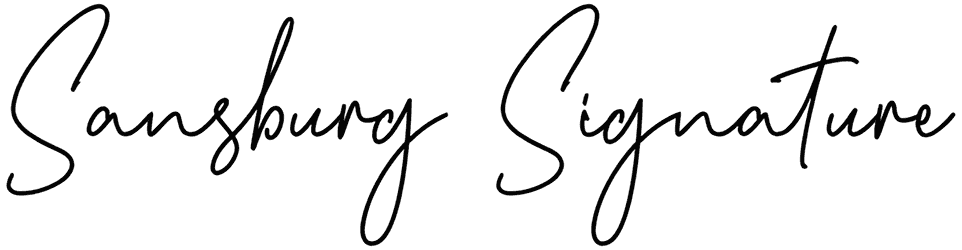
Sansburg Signature Font
Do you want to show a stylish and confident design to viewers? This calligraphy font with its smooth lettering would be the right answer. Sansburg Signature font mirrors an elegant and unique vibe, and with its full support of realistic characters, could be used for any short or long projects. This signature font will illustrate business cards, branding, posters, and others with a memorable mood.